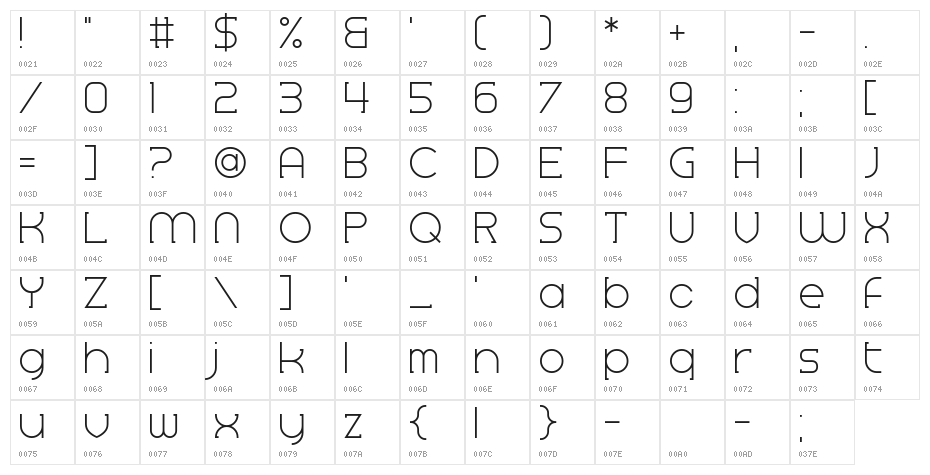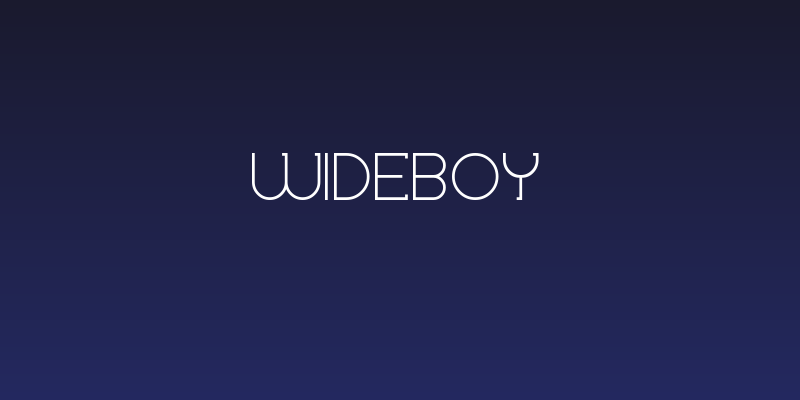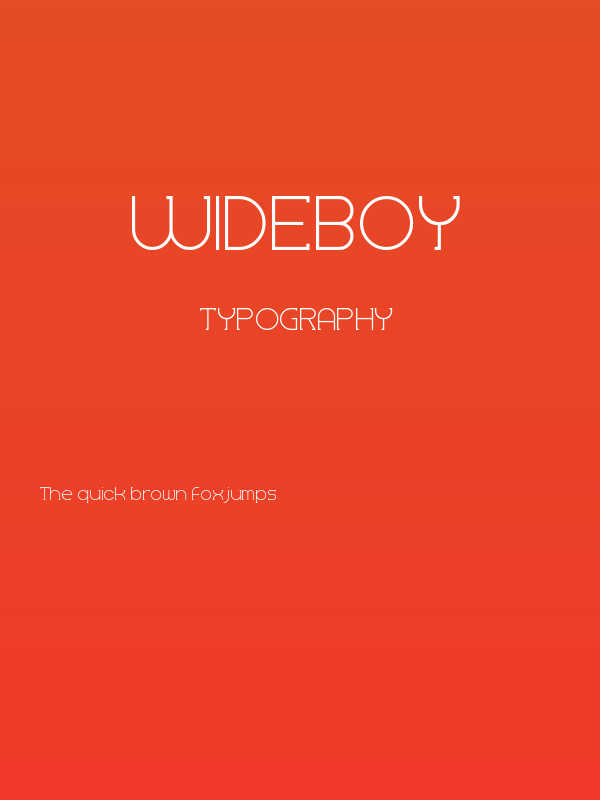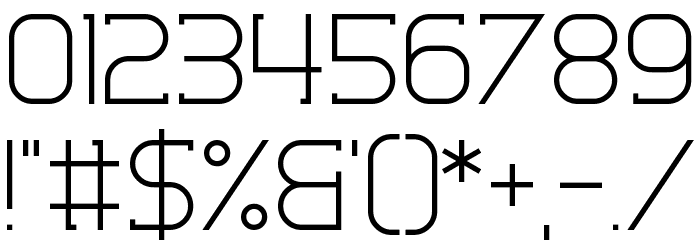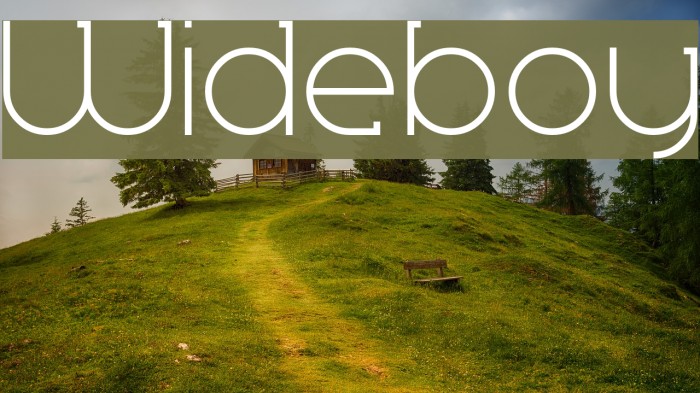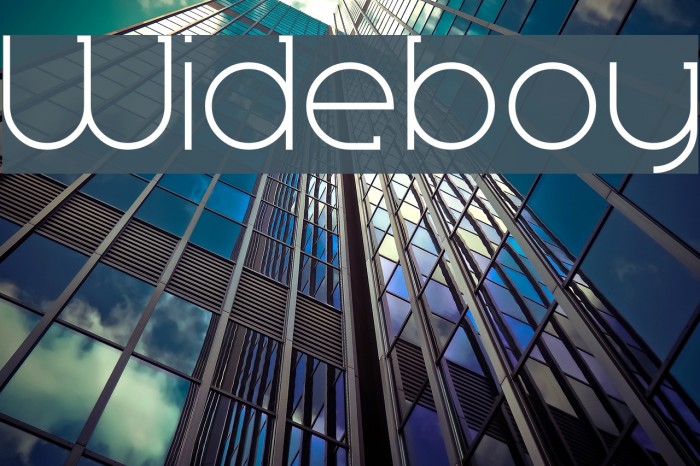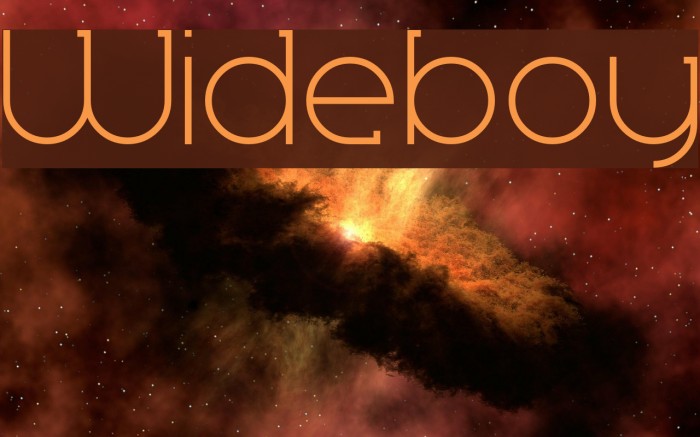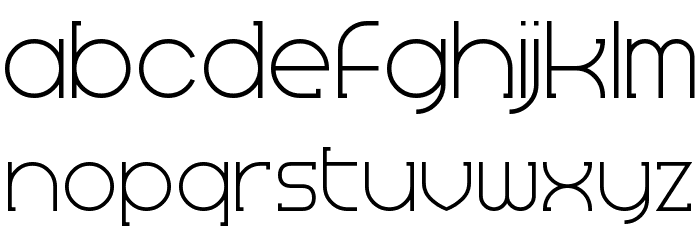
Wideboy Font
Wideboy Description
This font features a modern, geometric design with clean lines and a minimalist aesthetic. The characters are constructed with a consistent stroke width, giving it a uniform appearance. The uppercase and lowercase letters maintain a similar height, contributing to a balanced look. The numerals and special characters are designed to complement the alphabet, maintaining the same geometric style. The overall design is sleek and contemporary, making it suitable for a variety of digital and print applications. Its simplicity and clarity make it highly legible, even at smaller sizes.
| Proposed Projects | Ideal for branding, digital interfaces, modern print materials, and minimalist design projects. |